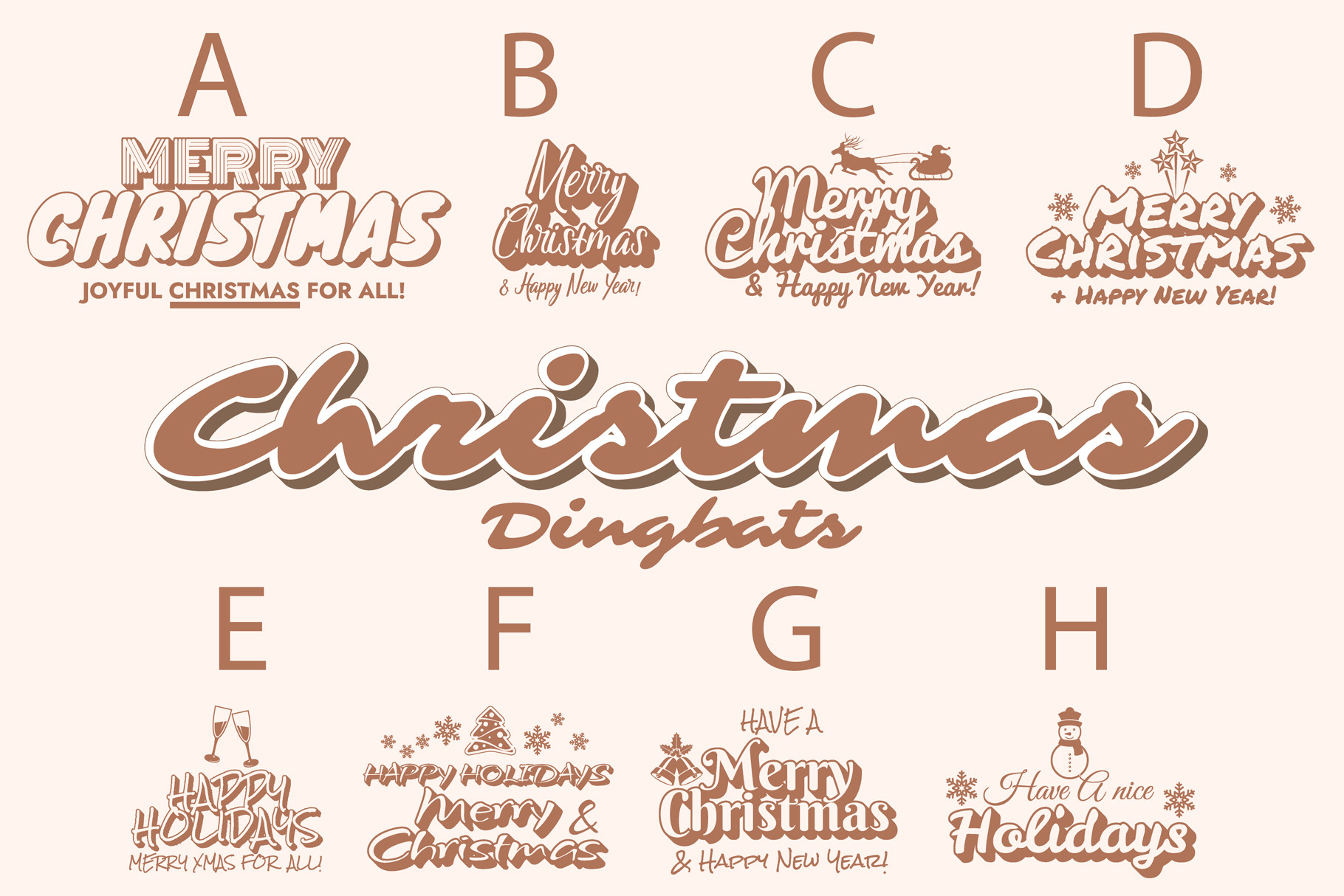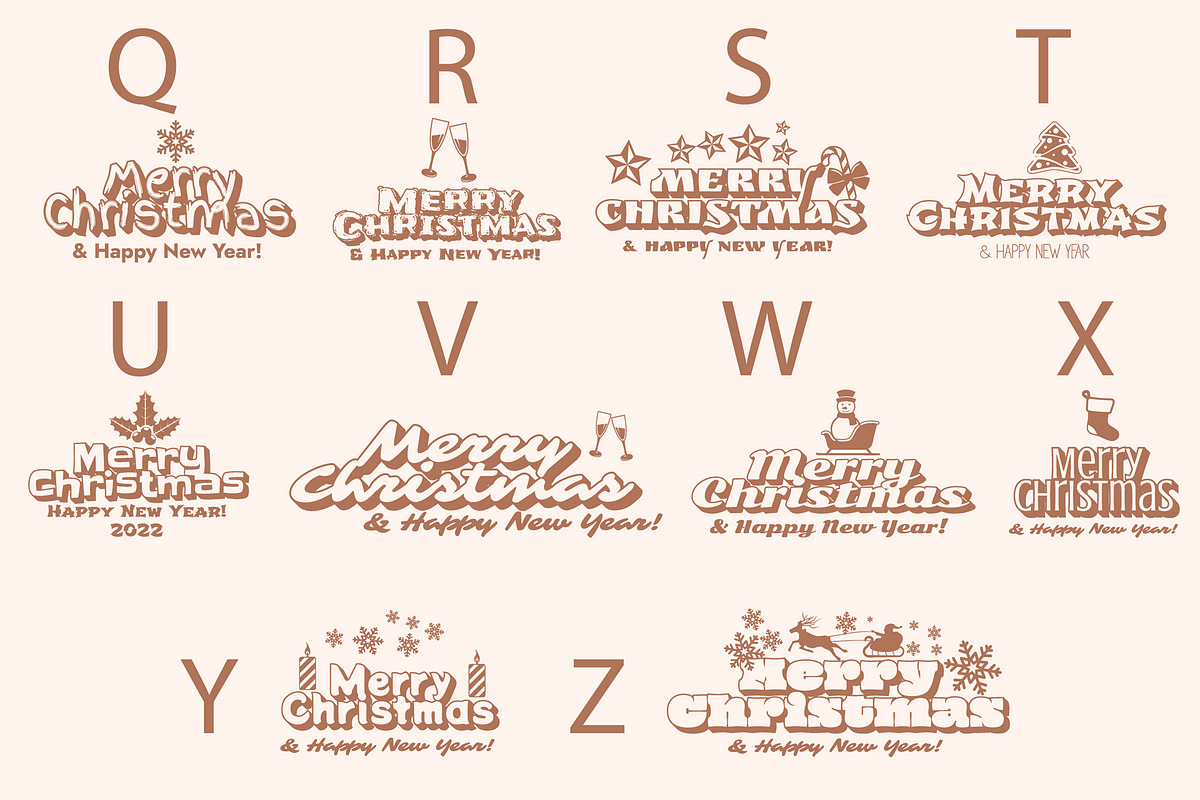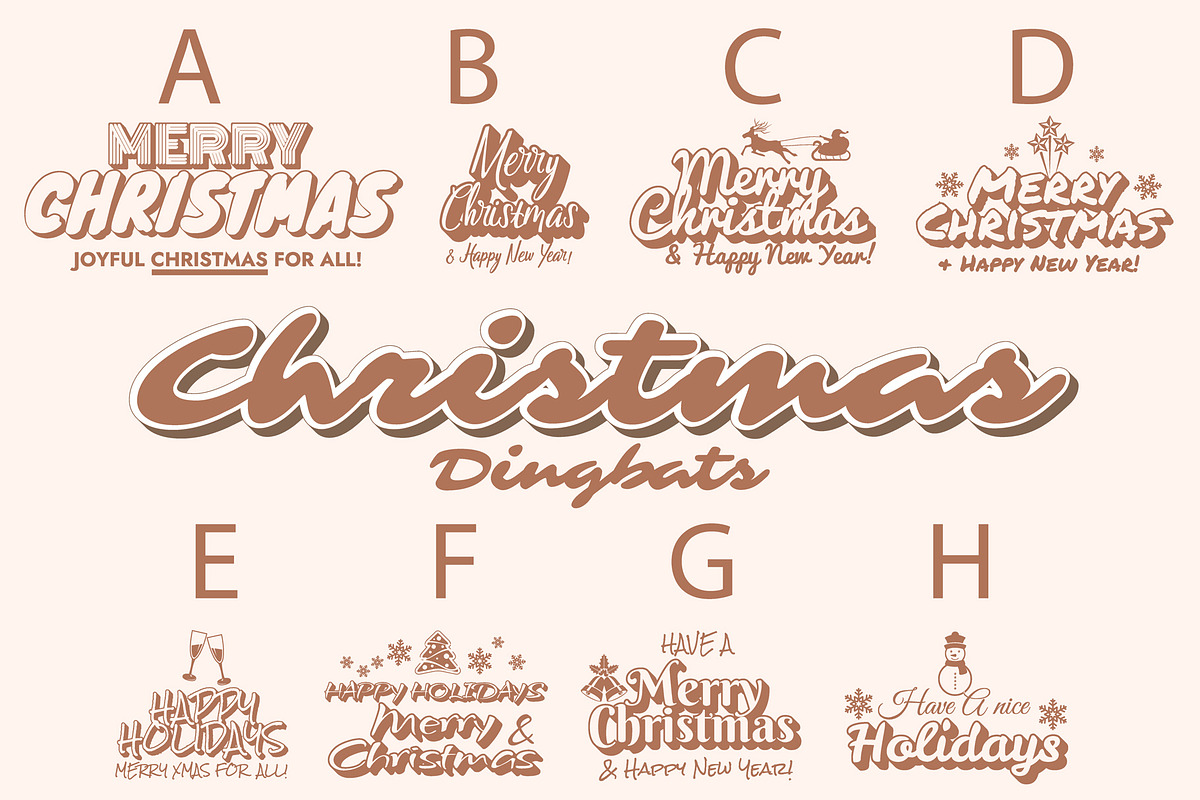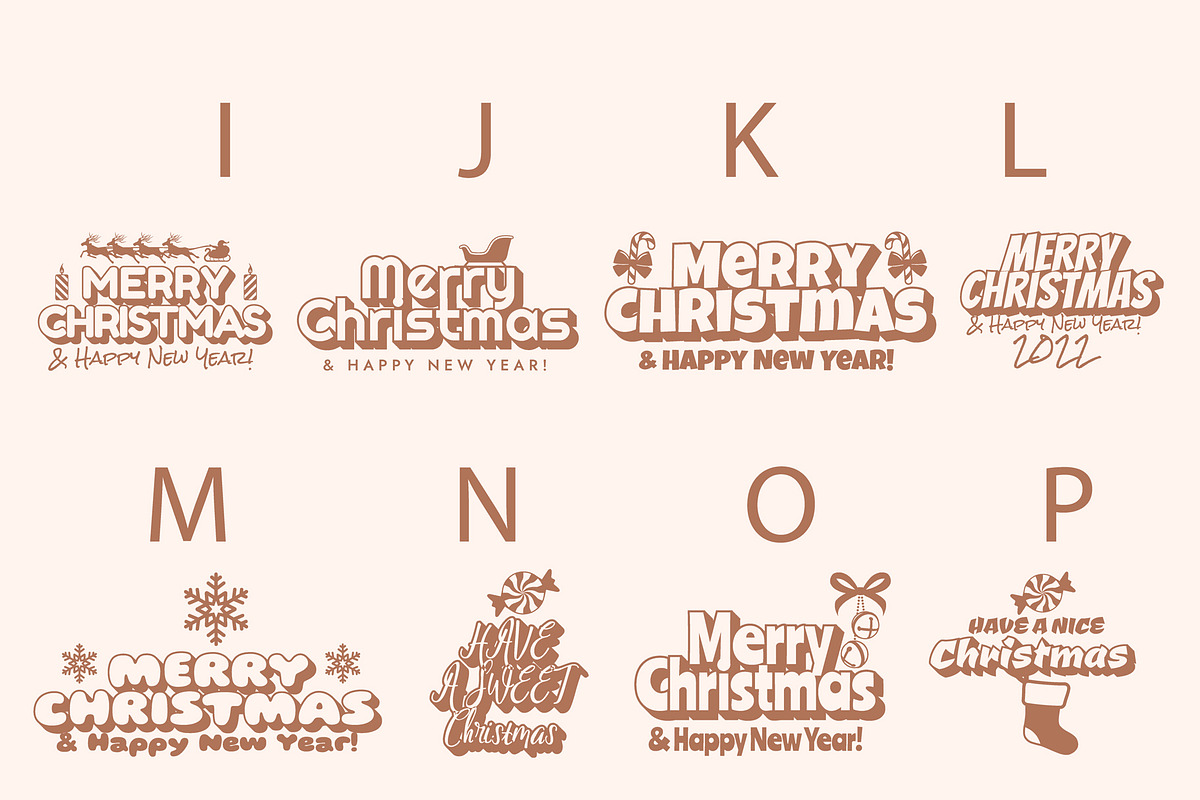
Christmas Dingbats Font
Christmas is a cool and vintage styled dingbats font. Whether you’re looking for fonts for Instagram or calligraphy scripts for DIY projects, this font will turn any creative idea into a true piece of art!